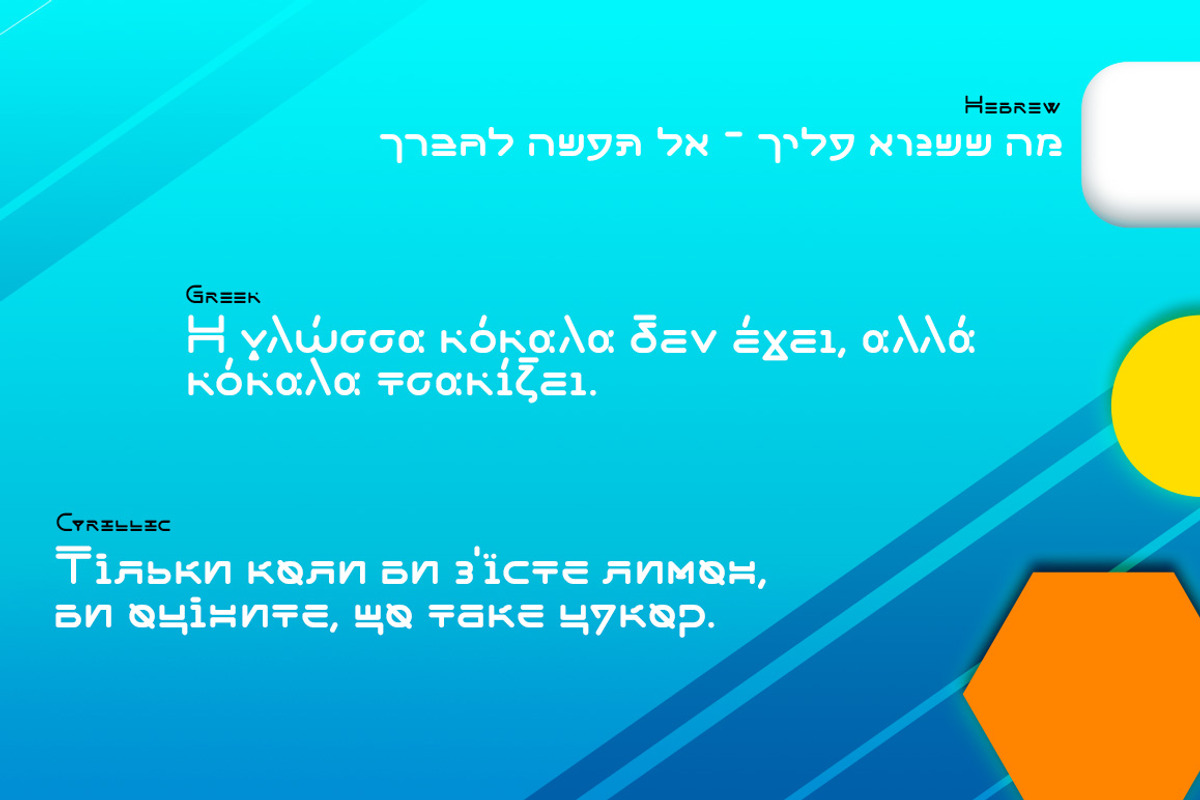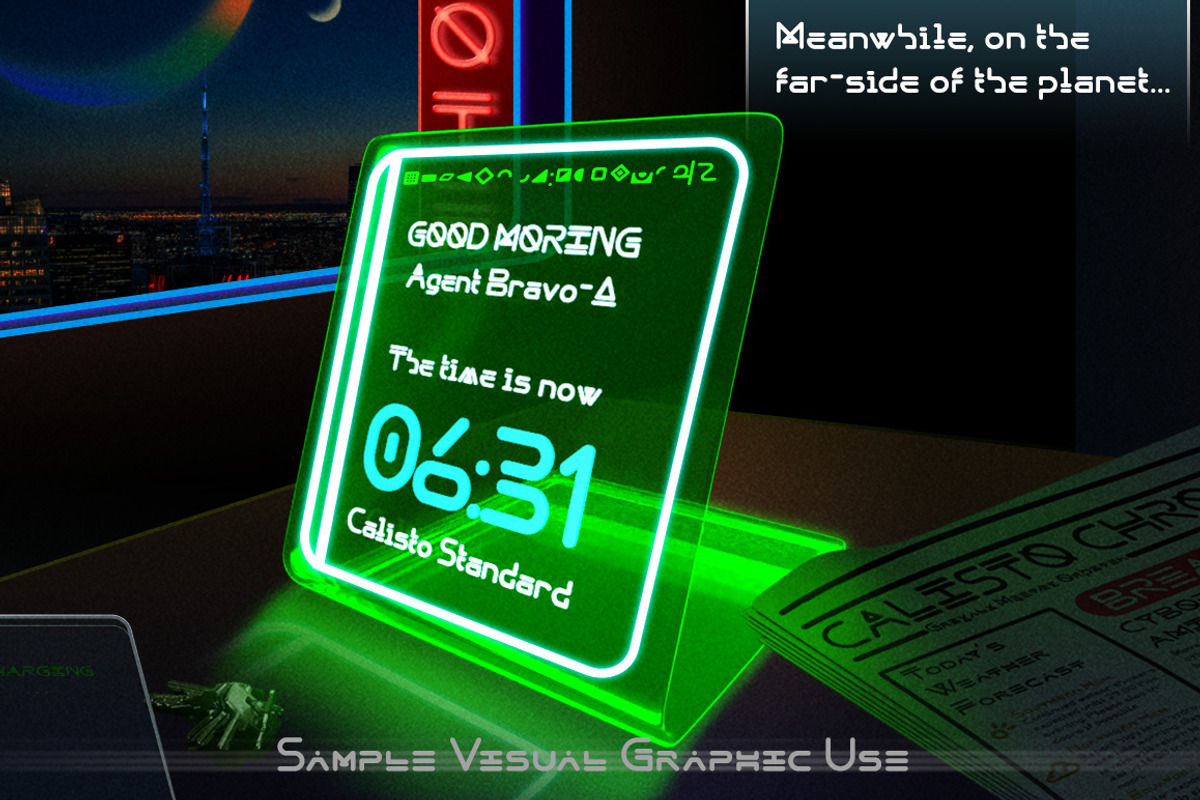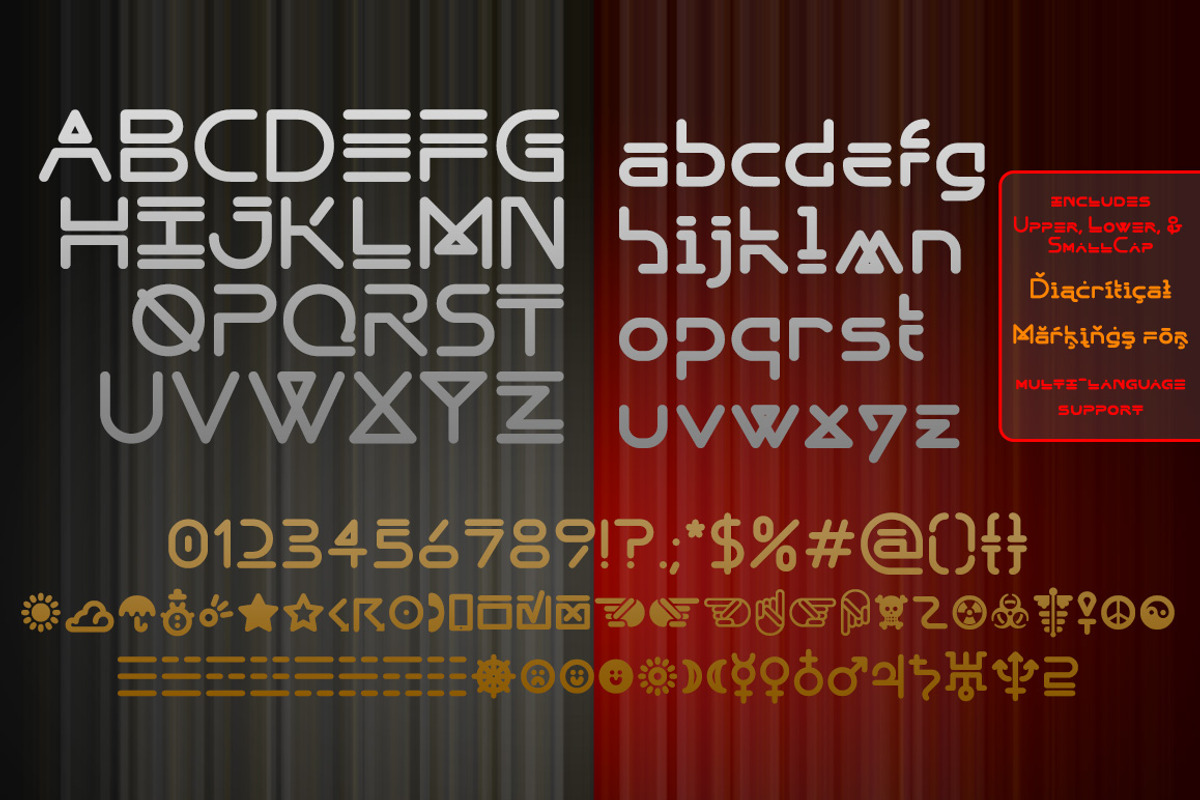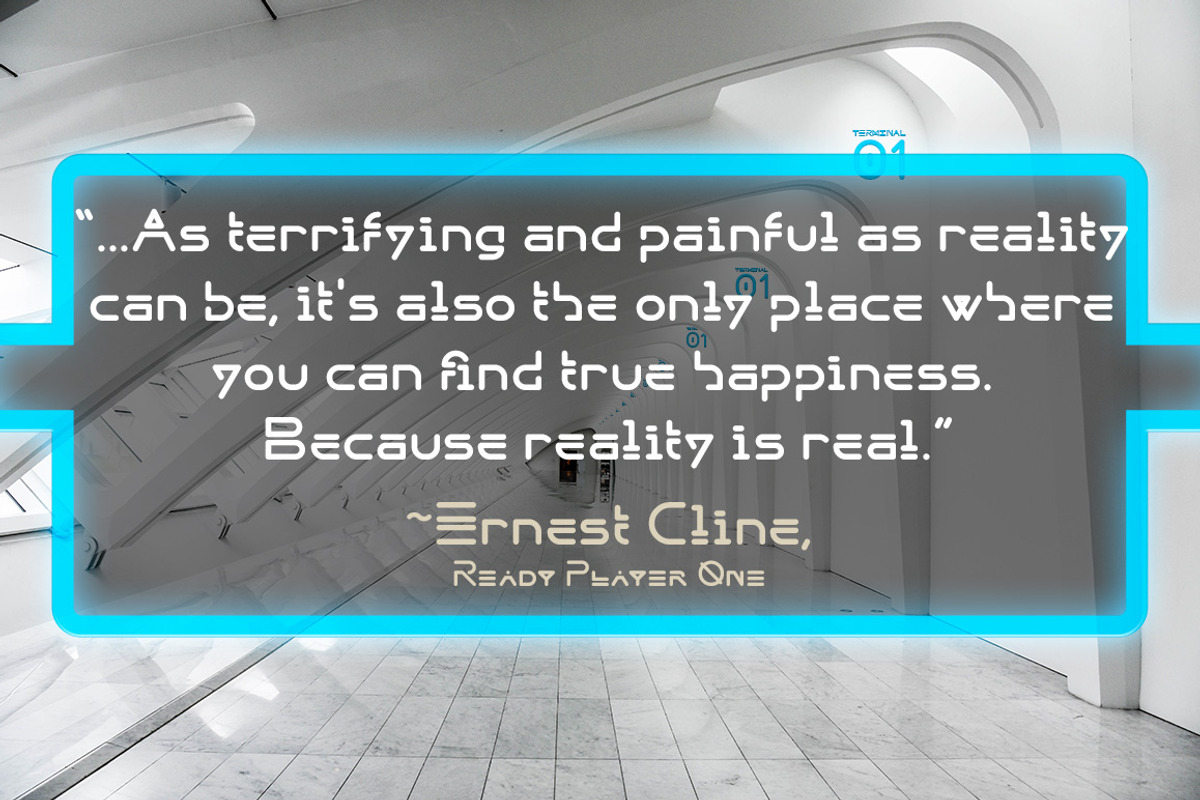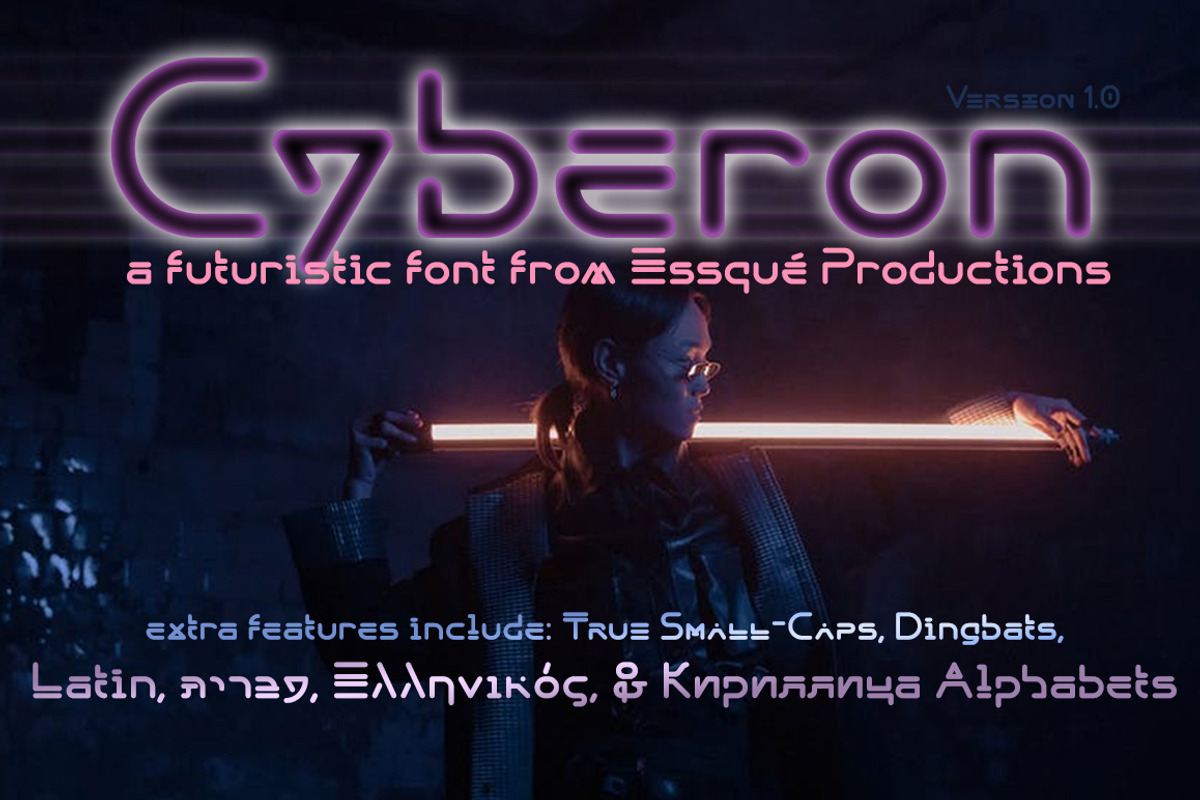
Cyberon
A futuristic interface font originally developed for event artwork; now expanded for full multi-language use. Also includes limited dingbats. Great for sci-fi, electronic music events, or other projects requiring a not-quite-earthly look.